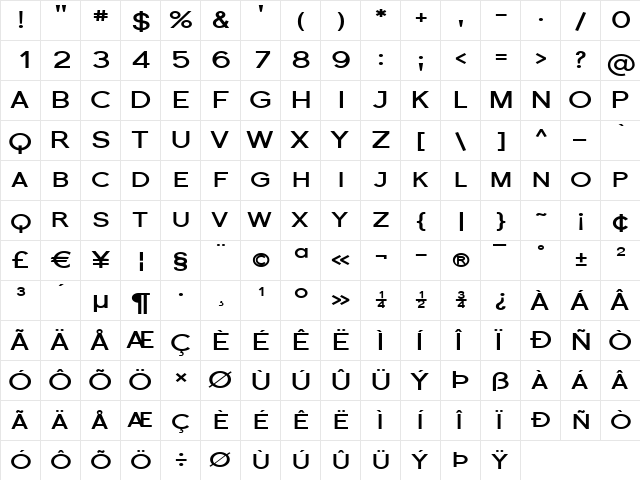
Florencesans SC Exp Bold Font Preview
Florencesans SC Exp Bold
Design Context for Florencesans SC Exp Typeface
Florencesans SC Exp offers clean, dependable letterforms without strong stylistic allegiance, making it a practical choice for designers who need flexibility. The heavy weight commands attention and anchors typographic hierarchies.
Pro Tip: Use Florencesans SC Exp in both headline and body roles to test its range before committing to a single application.